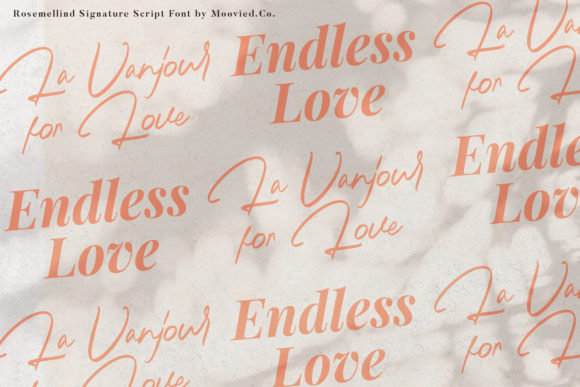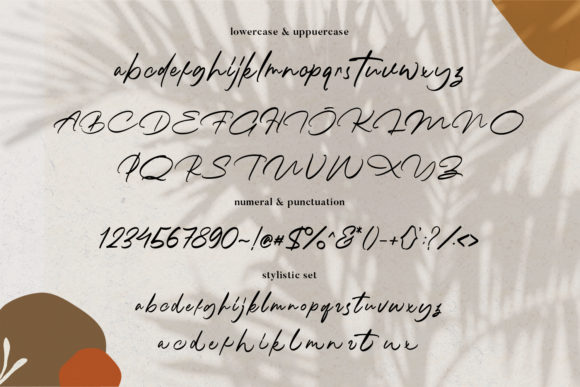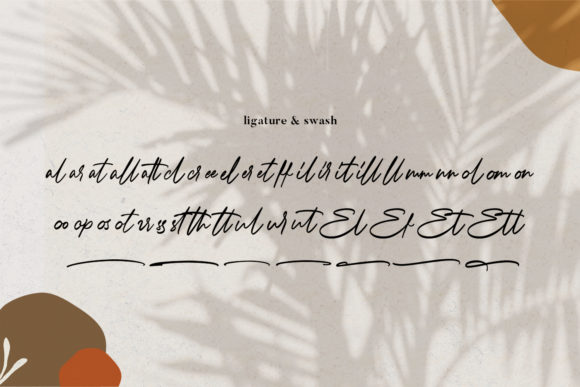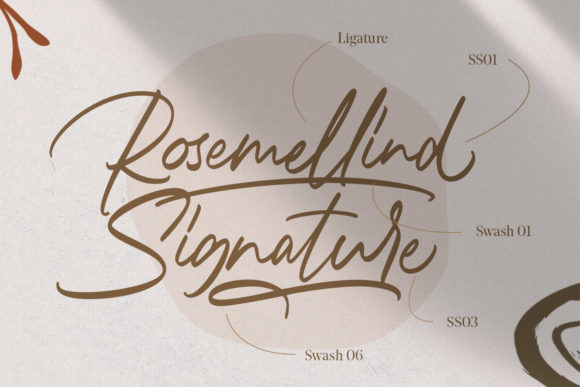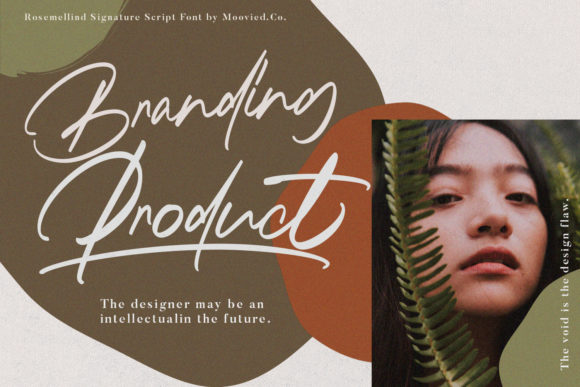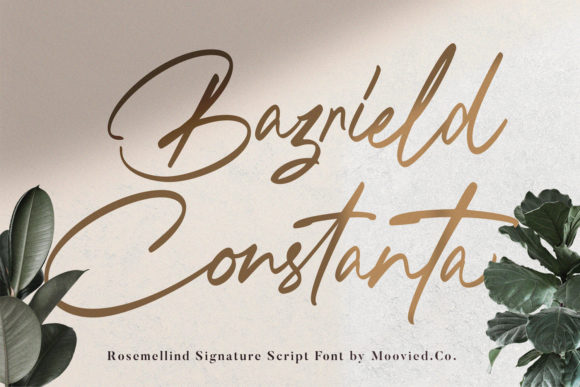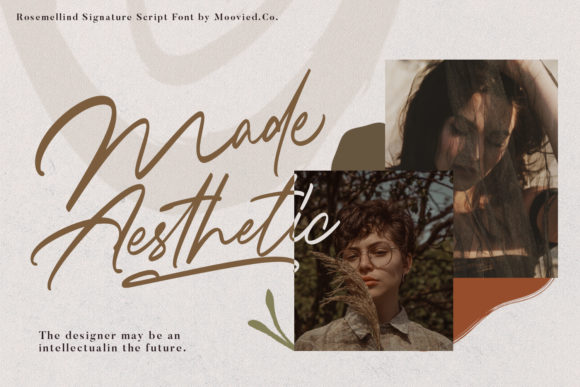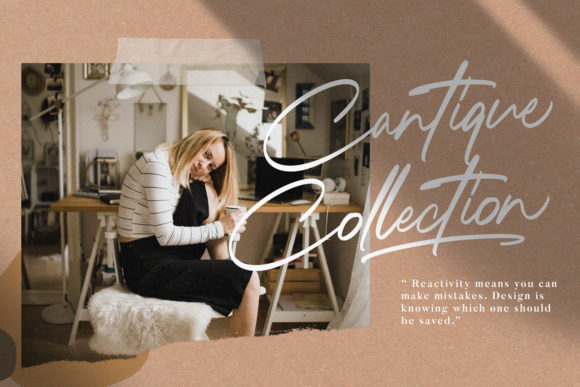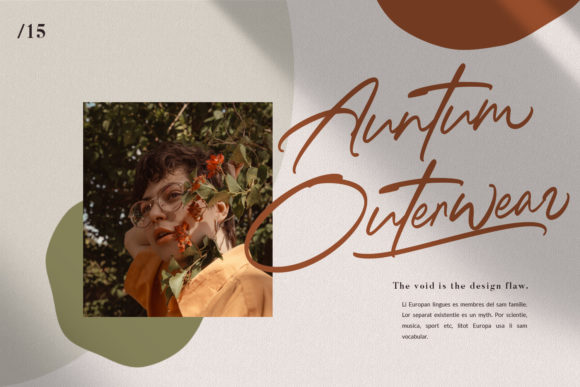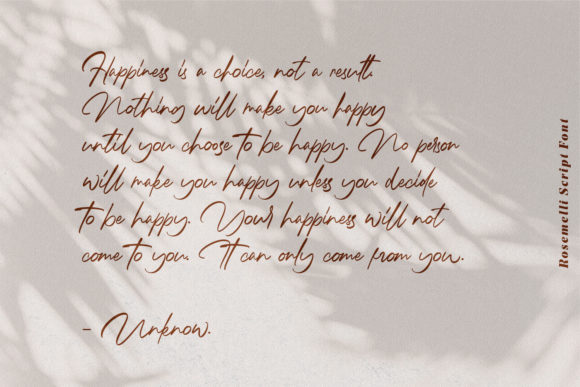
Rosemellind Signature Font
About Rosemellind Signature Font
Rosemellind Signature is a gorgeous and timeless script font. It’s perfect for blogging, social media, branding, product packaging, wedding invitations, branding, headlines, signage, labels, signature, book covers, posters, quotes and much more!